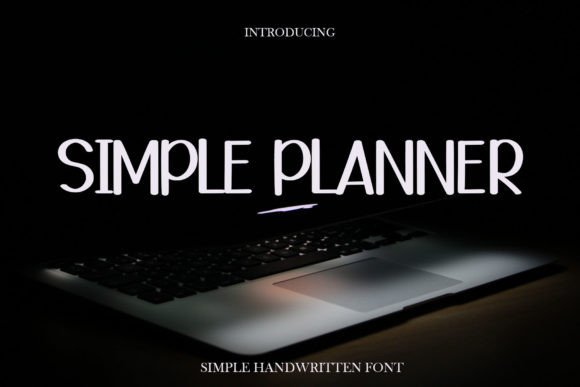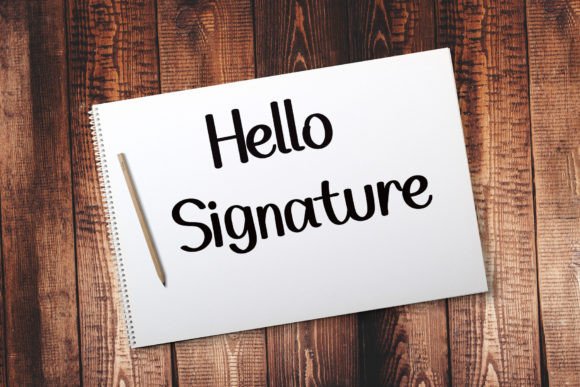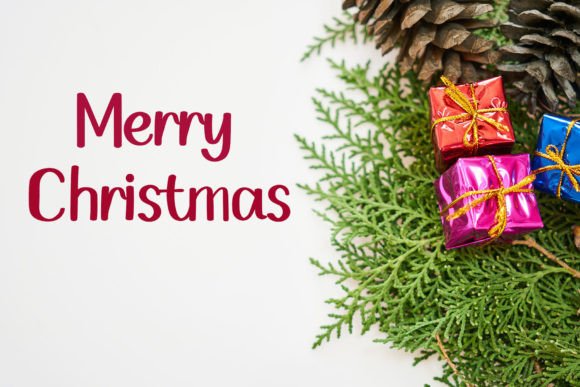
**Simple Planner: A Delicate Handwritten Font for Cool and Unique Designs**
**Simple Planner** is a delicate handwritten font, meticulously crafted to bring a cool and unique design to your projects. With its careful and deliberate style, this font is a versatile choice that can be used for a wide variety of creative applications.
The charm of **Simple Planner** lies in its handwritten letterforms, which convey a sense of personality and authenticity. This font is perfect for creating designs that have a distinctive and one-of-a-kind quality.
**Simple Planner** is adaptable and versatile, making it suitable for various design projects. Whether you’re writing letters, crafting invitations, designing food product labels, or creating captivating titles, this font adds a touch of uniqueness to your work.
In letters and invitations, **Simple Planner** brings a personal and charming feel, making your messages more heartfelt.
On food product labels and packaging, this font adds a touch of handmade authenticity, appealing to consumers.
In titles and headings, **Simple Planner** infuses your designs with a cool and contemporary vibe, grabbing the viewer’s attention.
In conclusion, **Simple Planner** is a font that offers a delicate and handcrafted touch to your design projects. Its unique and cool design is perfect for creating a wide range of creative materials. Embrace the charm of **Simple Planner** and let your creativity shine with a touch of authenticity and individuality.